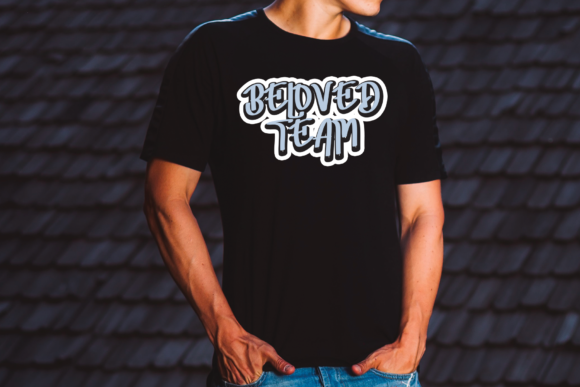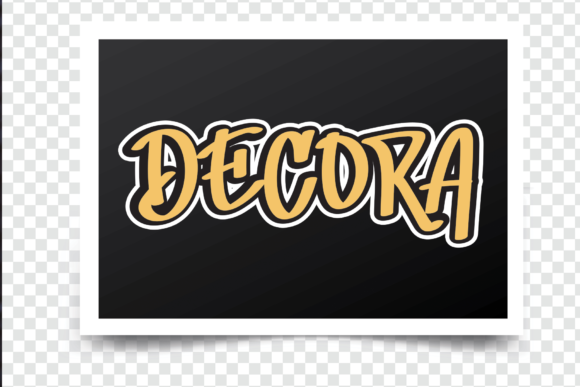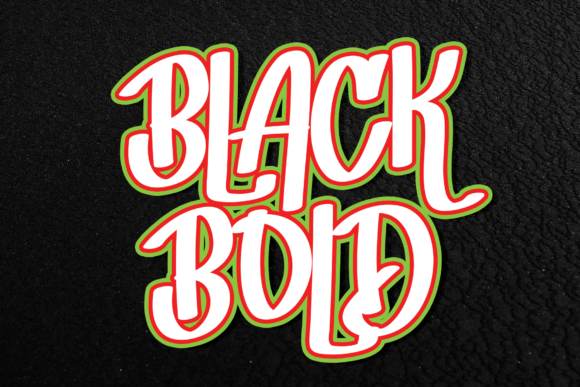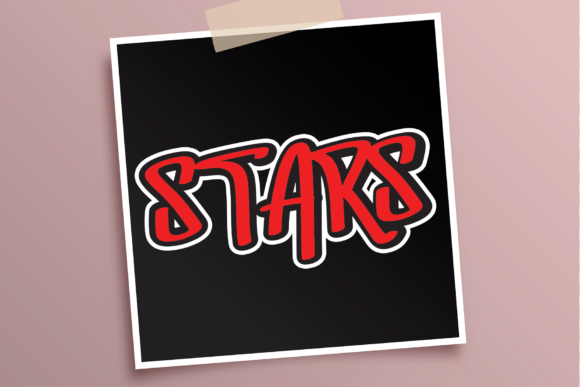
Crack Font: The Ultimate Choice for Designers and Crafters
Are you a designer or crafter looking for a font that can add a touch of coolness and casualness to your designs? Look no further than Crack Font! This display font is perfect for creating eye-catching designs that will leave a lasting impression. In this article, we’ll dive into the features and benefits of Crack Font, and explore how it can elevate your designs.
What is Crack Font?
Crack Font is a modern display font that is designed to be bold, yet laid-back. Its unique lettering style gives it a distinctive look that is perfect for designs that require a bit of attitude. Whether you’re creating a logo, advertisement, or t-shirt design, Crack Font is sure to make your work stand out.
Key Features of Crack Font
- Cool and Casual: Crack Font has a relaxed, casual vibe that makes it perfect for designs that require a laid-back feel.
- Versatile: This font is suitable for a wide range of designs, including t-shirts, sportswear, logos, advertisements, clothing, and more.
- Easy to Read: Despite its bold and edgy look, Crack Font is surprisingly easy to read, making it perfect for designs that require a clear message.
- High-Quality: Crack Font is a high-quality font that is designed to look great on any device or medium.
Benefits of Using Crack Font
So, why should you choose Crack Font for your designs? Here are just a few benefits of using this amazing font:
- Adds a Touch of Personality: Crack Font can add a unique touch of personality to your designs, setting them apart from the crowd.
- Increases Visibility: The bold and eye-catching design of Crack Font makes it perfect for designs that need to grab attention.
- Enhances Brand Identity: Crack Font can help to create a consistent brand identity that is both modern and stylish.
Design Ideas Using Crack Font
So, how can you use Crack Font in your designs? Here are a few ideas to get you started:
- T-Shirt Designs: Crack Font is perfect for creating bold and eye-catching t-shirt designs that will make a statement.
- Logo Design: Use Crack Font to create a unique and memorable logo that will help your brand stand out.
- Advertisements: Crack Font is great for creating eye-catching advertisements that will grab attention and drive results.
- Sportswear Design: Crack Font is perfect for designing sportswear that is both stylish and functional.
In conclusion, Crack Font is an amazing display font that is perfect for designers and crafters looking to add a touch of coolness and casualness to their designs. With its unique lettering style, versatility, and ease of use, Crack Font is sure to become a go-to font for anyone looking to create eye-catching designs. So why wait? Download Crack Font today and start creating amazing designs that will leave a lasting impression!